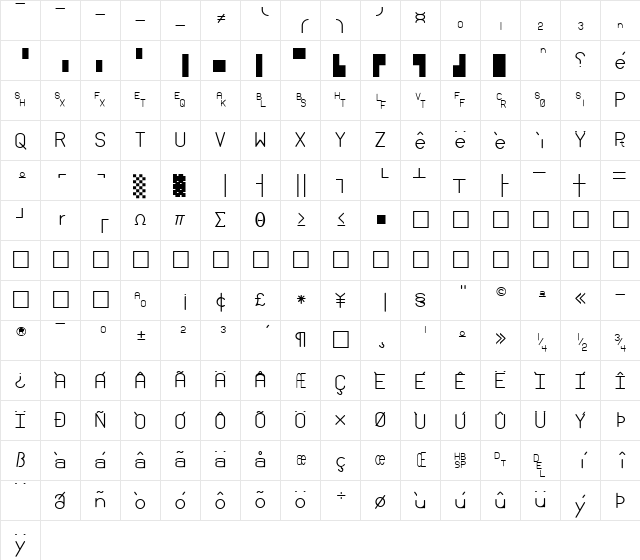
PCPlus Extra TrueType Regular Font Preview
PCPlus Extra TrueType Regular
PCPlus Extra TrueType Regular Font Details
Design Context for PCPlus Extra TrueType Typeface
PCPlus Extra TrueType offers clean, dependable letterforms without strong stylistic allegiance, making it a practical choice for designers who need flexibility.